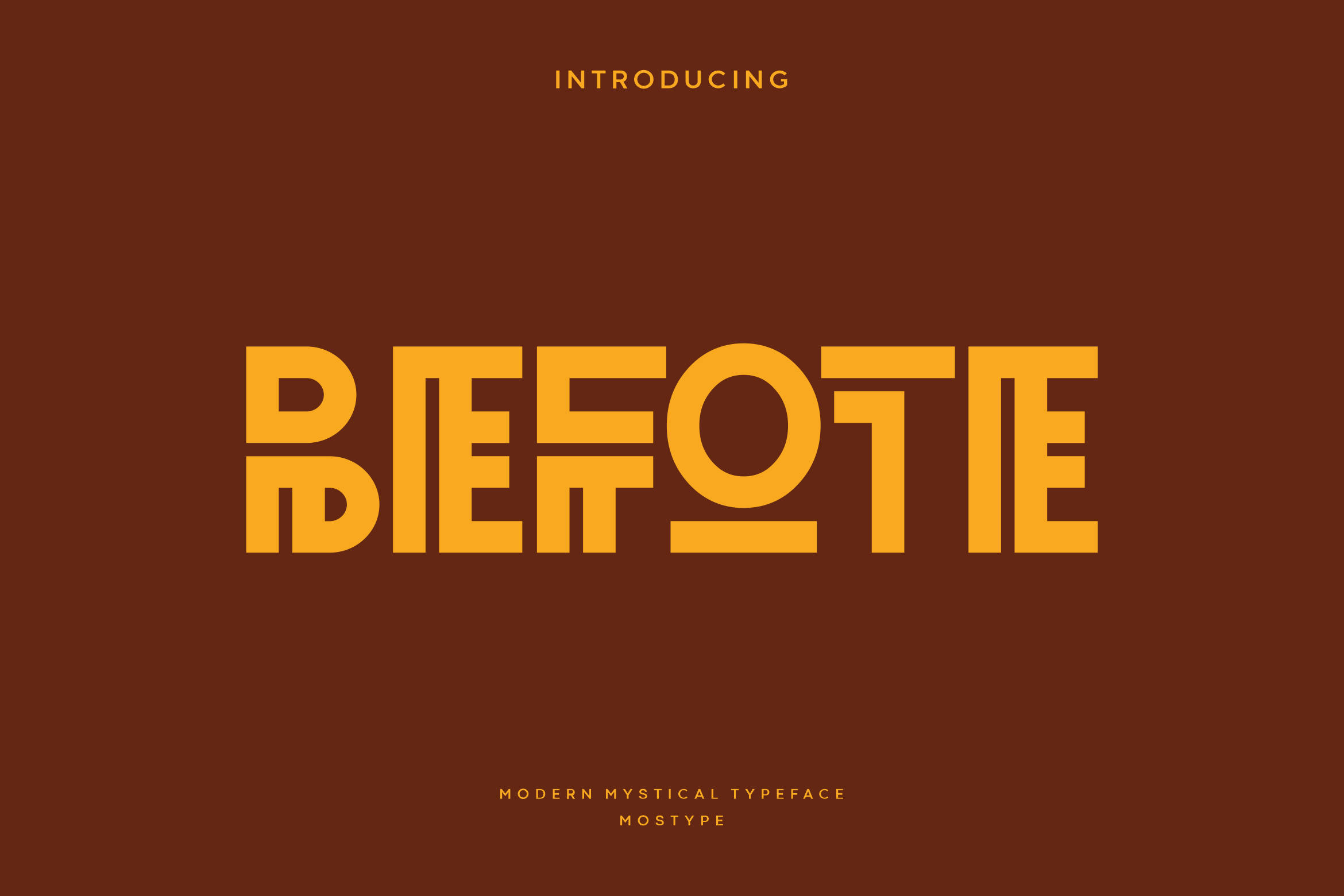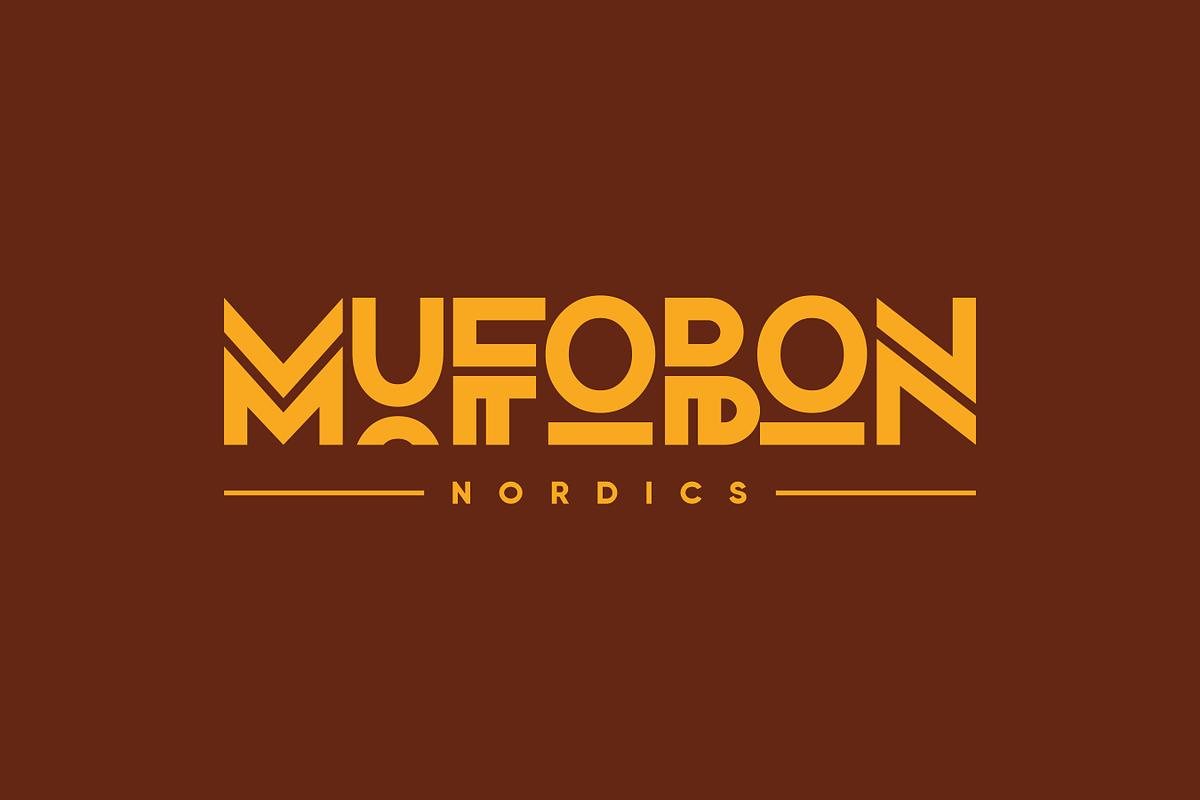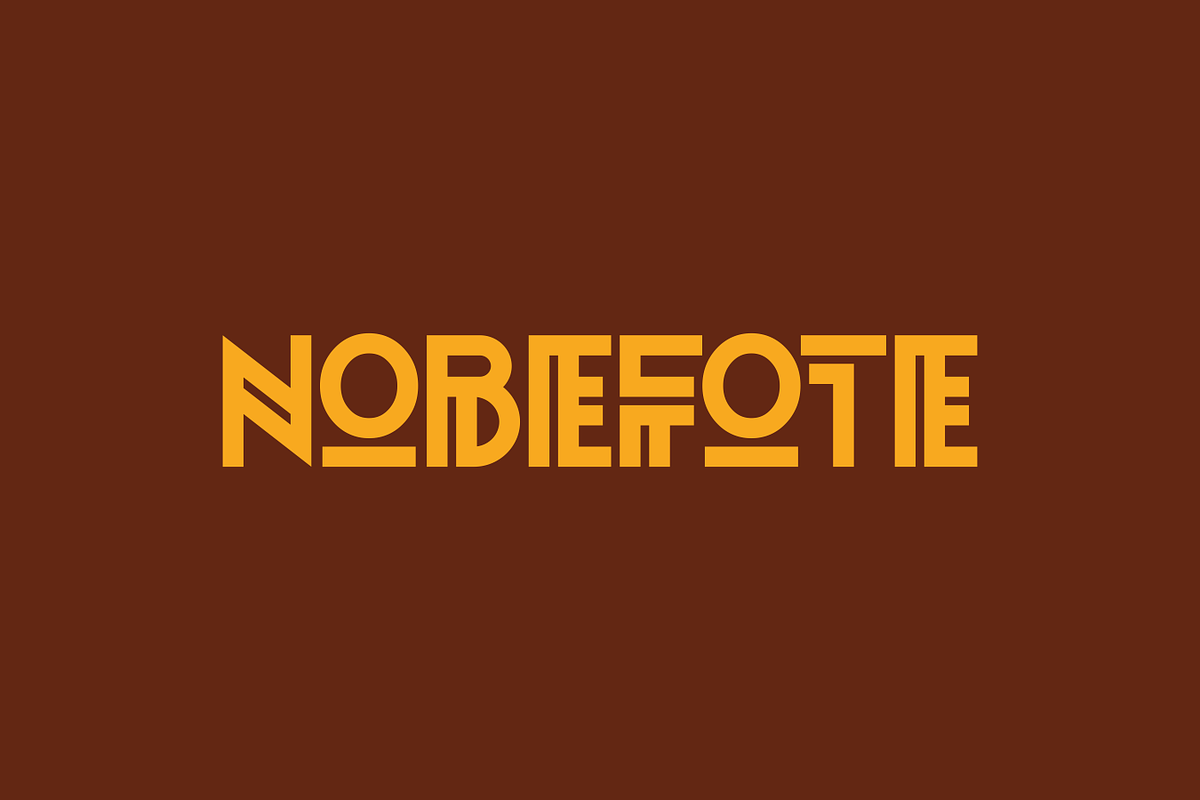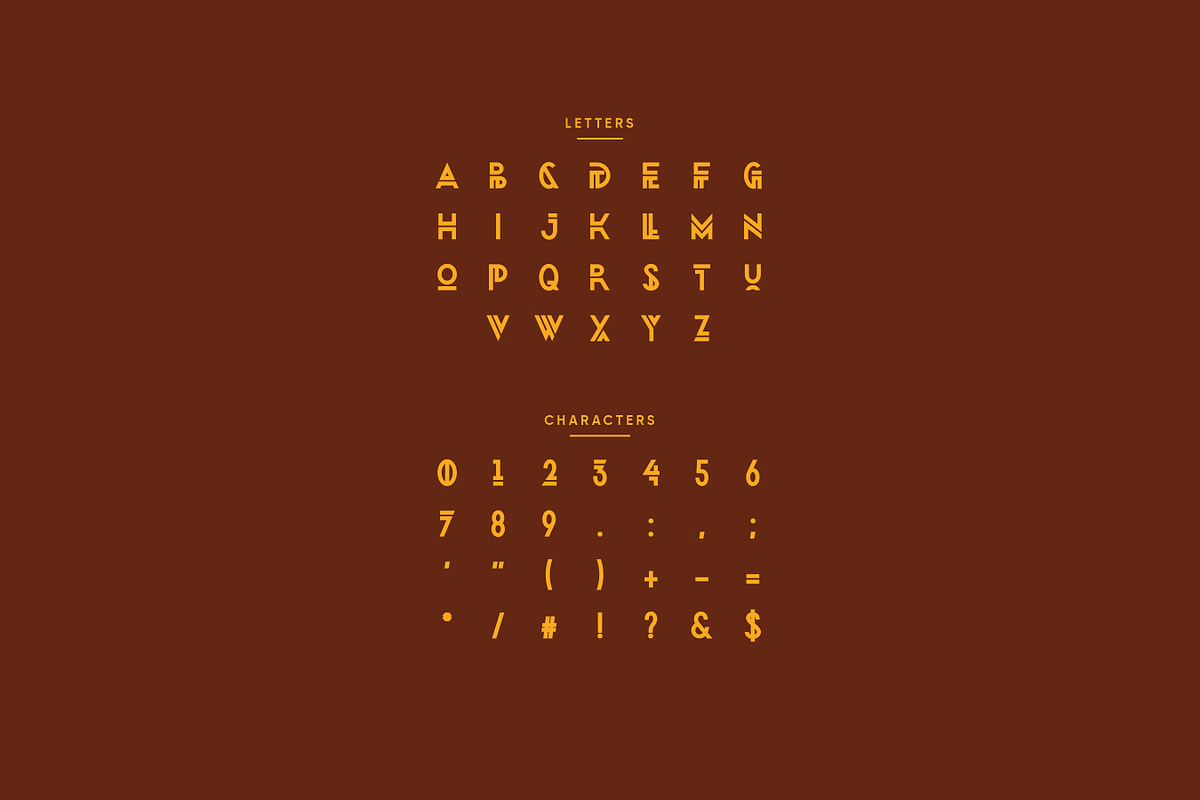
Befote - Modern Mystical Typeface
Befote is a mystical font with a unique and modern geometric style. It's suitable for logo, quotes, social media post, film title and stationary. This font works with different theme such as mystical, tribal, ethnic, magical, and fantasy.